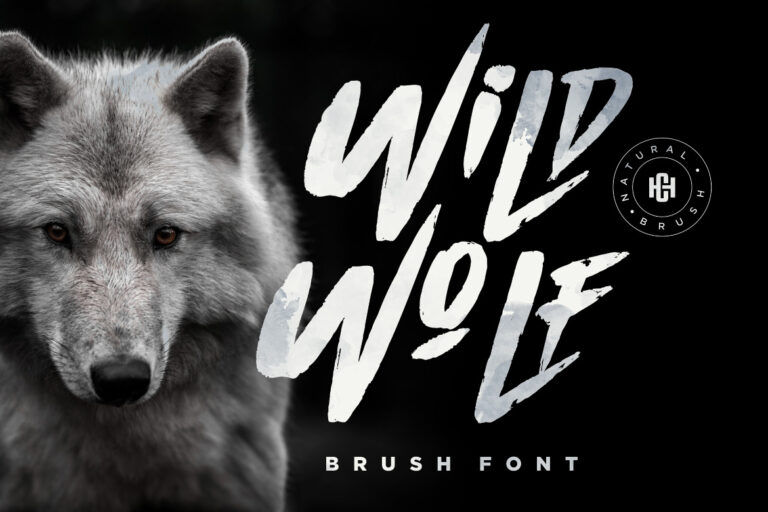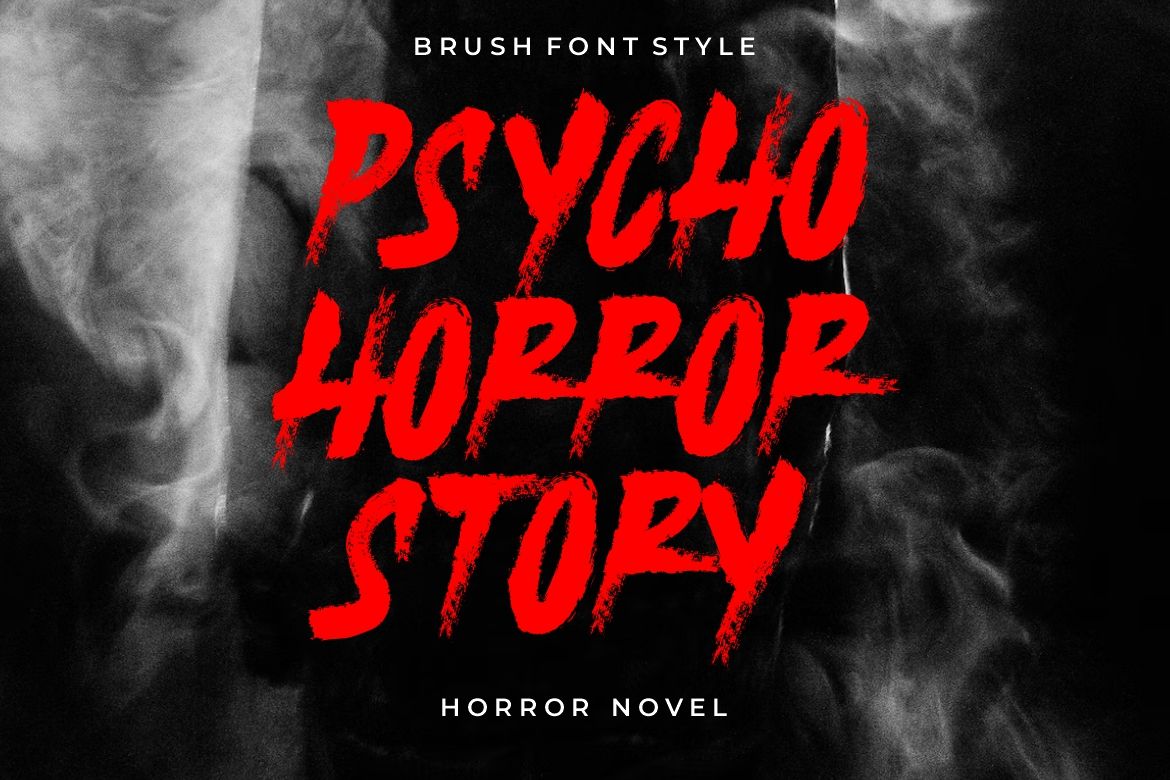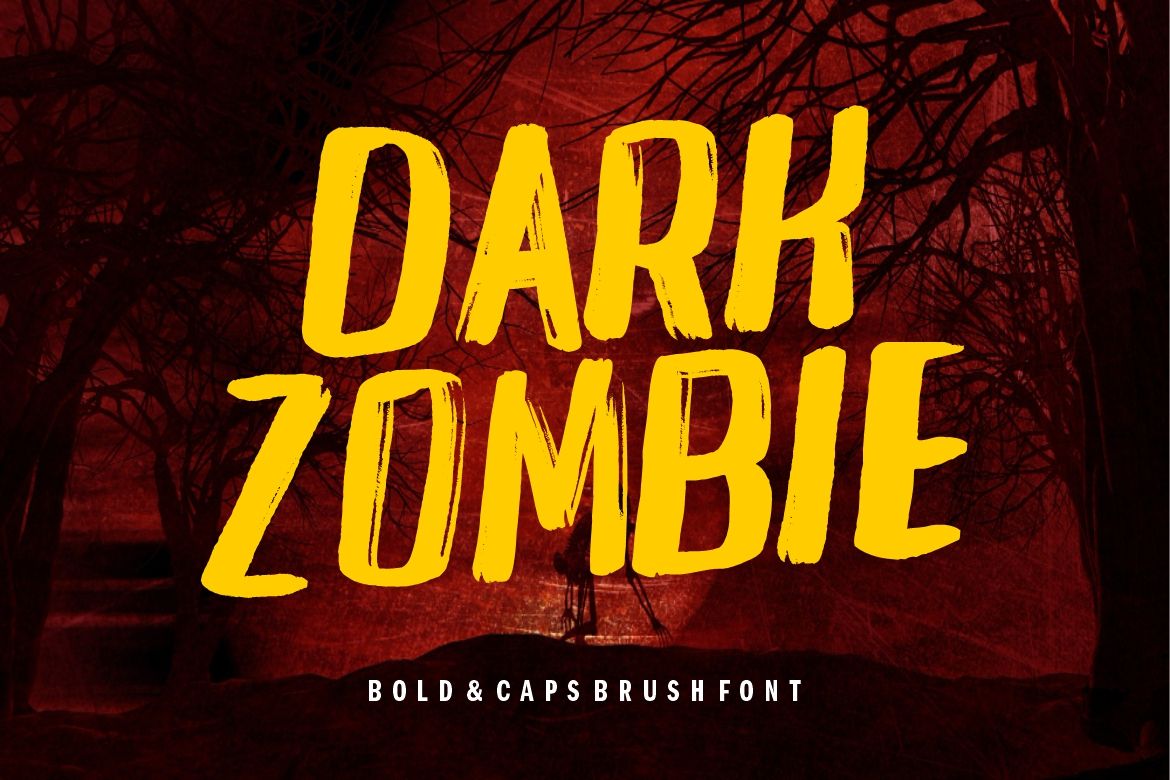
Fonts Horror Tips and 5 Best Picks For Your Spooky Aesthetic
Let’s be honest, nothing sets the mood in design quite like typography. The right font can make a brand feel elegant, playful, mysterious, or even terrifying. And when we talk about fonts horror, we’re talking about a visual language that shows fear or suspense.
We usually see creepy fonts on movie posters or Halloween invitations. But what makes a font truly scary? Why do some letters instantly send chills down your spine while others just feel ordinary?
Here, we’ll tell you what actually defines horror typography and how to use it effectively. As a bonus, you can also explore five of our best horror fonts from HansCo Studio to make your next design hauntingly good!
What Makes Fonts Horror So Distinctive
Just like how a black leather jacket gives off a completely different vibe than a wedding dress, horror fonts shape how the viewer emotionally reacts to your message.
The spooky factor comes from two main things, the font’s visual design and the emotional context it builds. Overall, here are a few characteristics that define horror typography:
⦁ Irregular Shapes and Jagged Edges
Unlike elegant or minimal fonts, spooky fonts often embrace imperfection. The strokes are uneven, the outlines look scratched or smeared, and that’s exactly what gives them their unsettling vibe.
Simply put, it mimics something “unnatural,” just like handwriting done in panic or blood splatter on a wall.
⦁ High Contrast and Shadow Play
Horror fonts often play with light and darkness. Strong contrasts like white text on a black background or red on deep gray immediately trigger tension. This visual tension mirrors the suspense in horror storytelling.
⦁ Gothic or Vintage Roots
Most fonts horror trace their lineage back to blackletter or Gothic typefaces, which were widely used in medieval times. Their pointed edges and ornamental forms symbolize danger, mystery, and the supernatural, the perfect formula for horror.
⦁ Emotional Depth and Storytelling
A great horror font isn’t just scary to look at, as it carries a narrative. For example, well-known fonts like ITC Benguiat became iconic because they remind us of Stranger Things or classic Stephen King book covers.
Tips: When and Where to Use Horror Fonts
Just because a font looks spooky doesn’t mean you can drop it anywhere. Horror fonts are powerful, but they need context. Here are some perfect scenarios where they work best:
⦁ Halloween or Horror-Themed Events
From haunted house posters to Halloween party invites, creepy fonts instantly create the right tone. Pair them with dark imagery or blood-red highlights to make your design scream.
⦁ Film, Gaming, and Book Covers
Horror movie titles and video games thrive on typography that captures the audience before they hit play. Fonts horror with brush textures or distorted edges work great here, they create mystery and fear even without visuals.
⦁ Clothing and Merchandise
Urban streetwear and band apparel often use fonts with spooky or horror vibes to convey boldness and rebellion. A simple rough brush font or gothic serif is the best way to add attitude and grit.
⦁ Social Media Graphics or Campaigns
As Halloween is coming next month, do you want to spice up your October marketing visuals? Horror fonts can help you build that seasonal aesthetic, with eye-catching, dramatic, and a little eerie vibes.
5 Best Horror Fonts from HansCo Studio
HansCo Studio’s collection is a treasure chest for designers who love expressive typography. Here are five of our top horror fonts, each with unique details, textures, and moods that fit different kinds of dark and edgy projects:
1. Wild Wolf
Just from the name, we can see that Wild Wolf howls energy and rebellion. It’s a handwritten brush font filled with raw texture and imperfect edges, mimicking real brush strokes on rough paper.
The dry brush texture adds realism and grit. It’s the typeface you’d use if you want your words to look clawed into existence.
2. Dark North
Dark North blends the haunting beauty of blackletter typography with a modern edge. Its sharp angles, high contrast, and narrow forms give it a gothic aura.
Unlike traditional medieval fonts, Dark North font stays legible even at smaller sizes. It also supports uppercase, lowercase, numerals, and multilingual characters.
3. Inktype
With its simplicity, Inktype gives a nostalgic yet chilling feel. It made you think of old letters in horror films or mysterious documents from haunted mansions.
The slightly irregular strokes and subtle ink bleed make it eerily realistic. This fonts horror is ideal for thriller movie titles, book covers, or eerie branding.
4. Night Driver